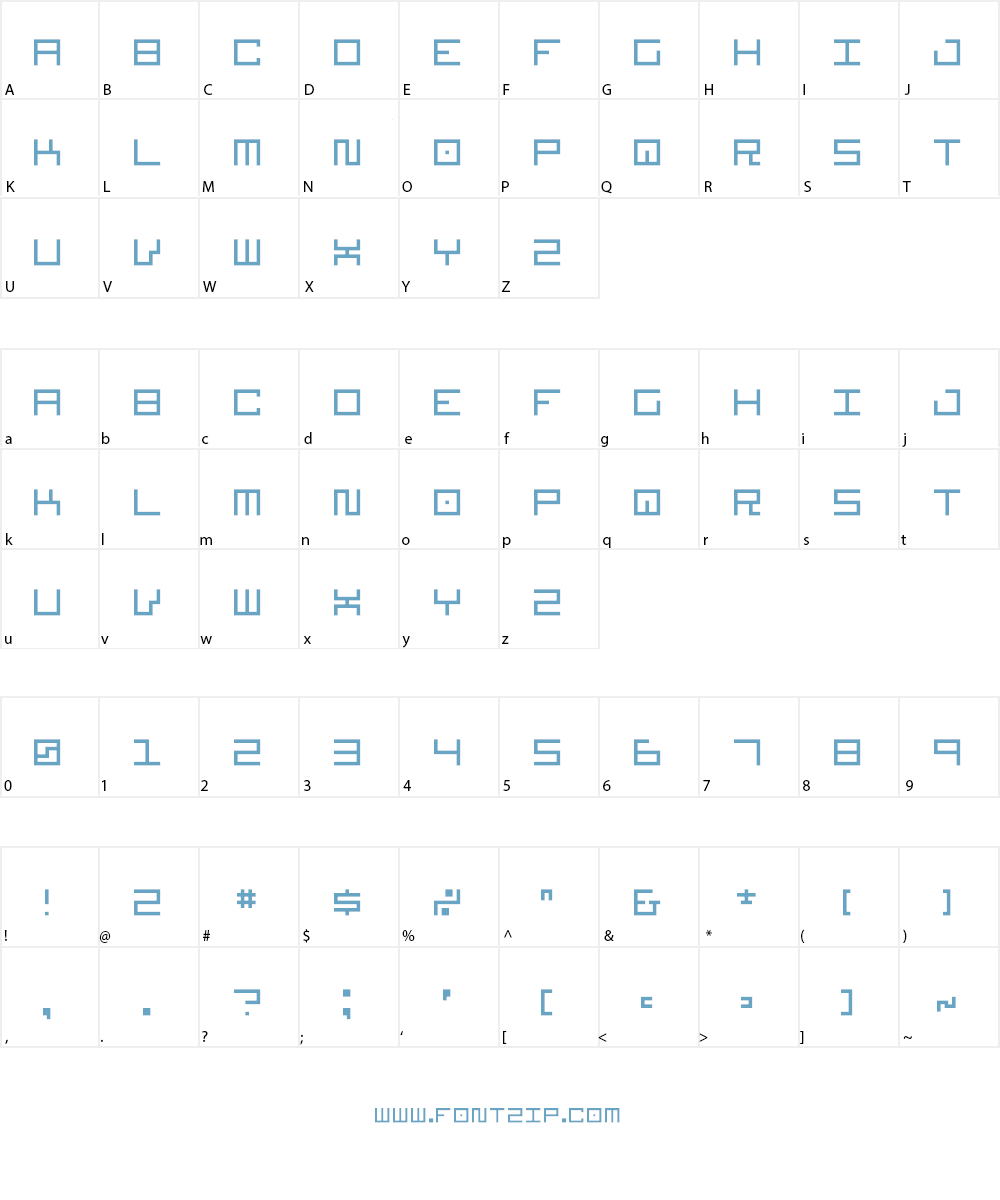
I realised that I didn't have any perfectly square fonts, so I made one. Cellblock has no slants at all, which led to some rather unusual letterforms. Contains Greek and Cyrillic as well as accented Latin.